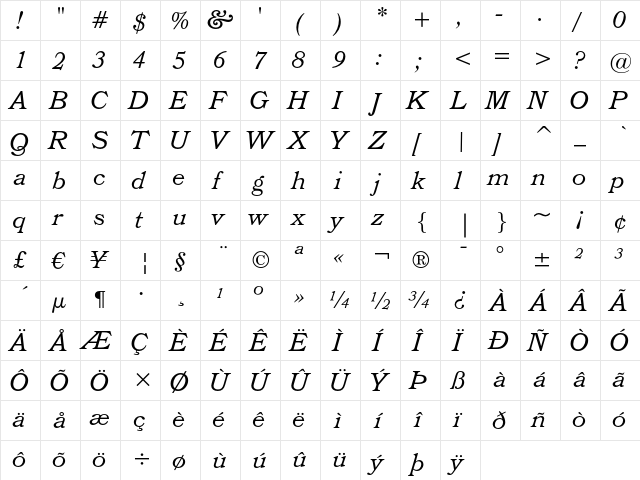
Bookman Italic Headline
Design Context for Bookman Typeface
Bookman is a composed and adaptable typeface that performs quietly and consistently across a wide range of design contexts. The dynamic lean of this cut emphasises speed and emphasis in any layout.
Pro Tip: Try Bookman for annotation and caption copy alongside an upright companion — the contrast in angle creates a dynamic but ordered typographic system.